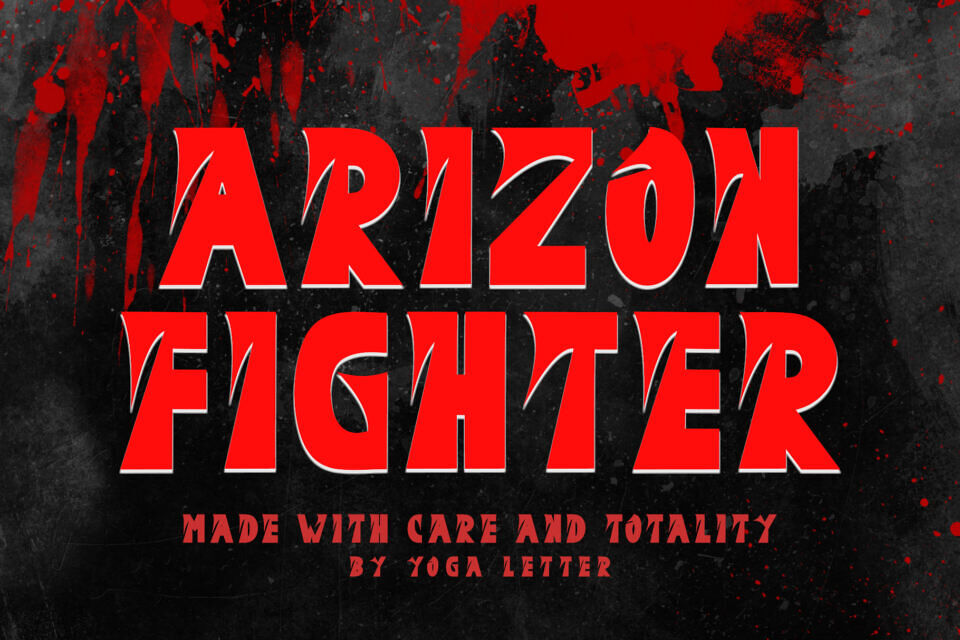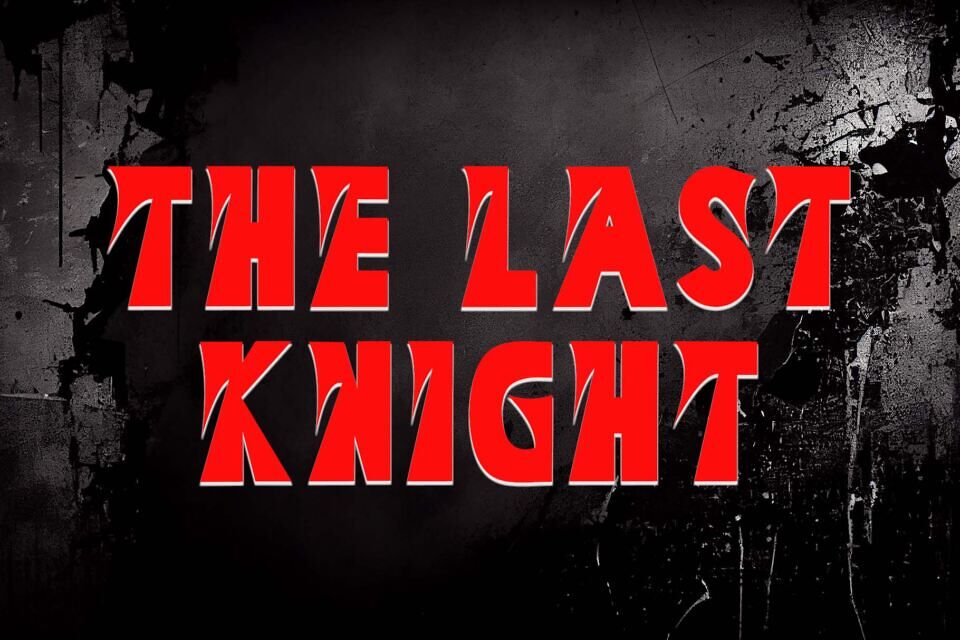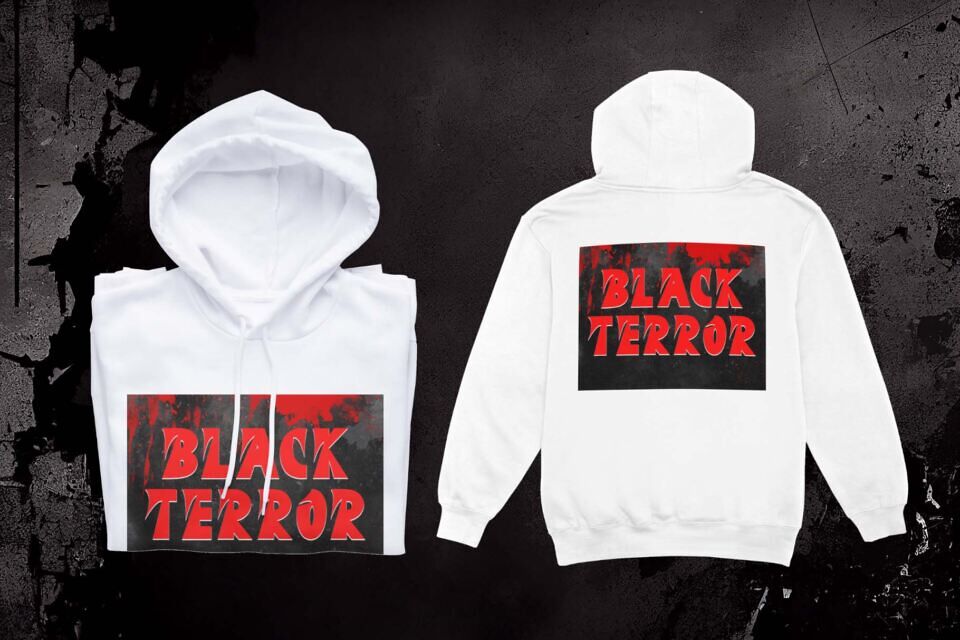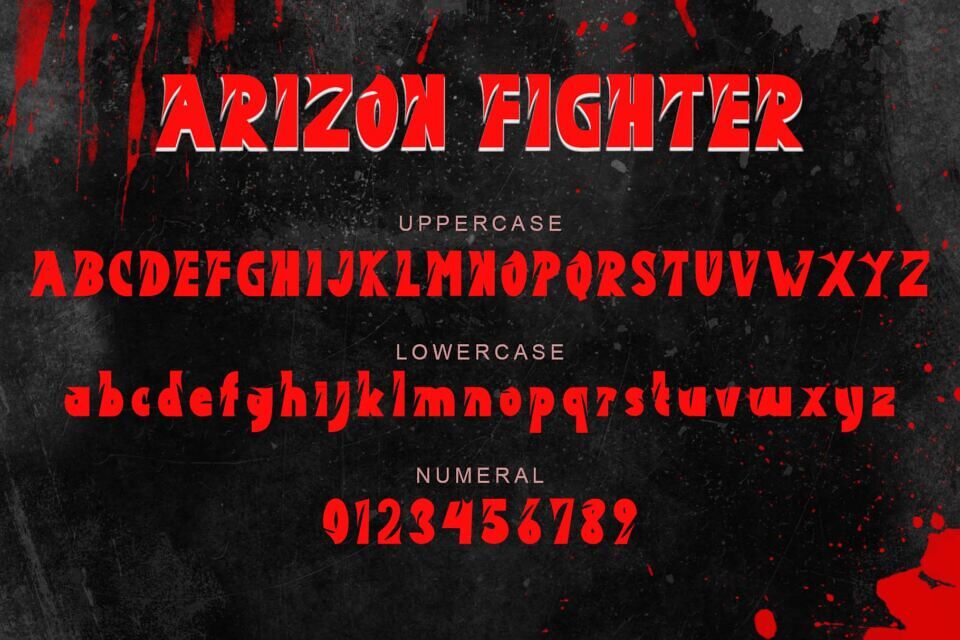
Arizon Fighter is an elegant and professional blackletter font. This font is equipped with uppercase, lowercase, numerals, punctuations and multilingual support.
It is very suitable for banners, posters, films, halloween, summer, spring, mother’s day, business branding, stickers, posters, tattoos and others.